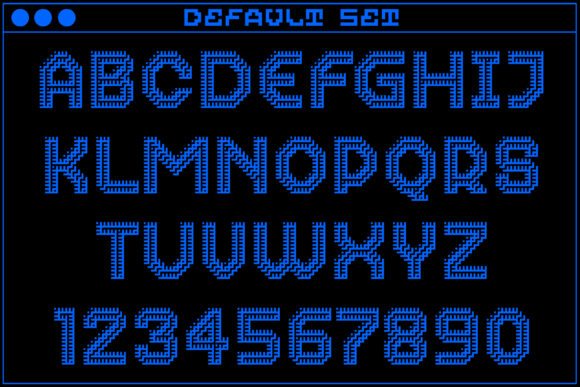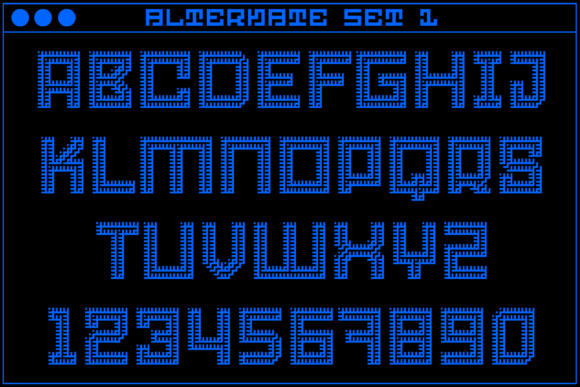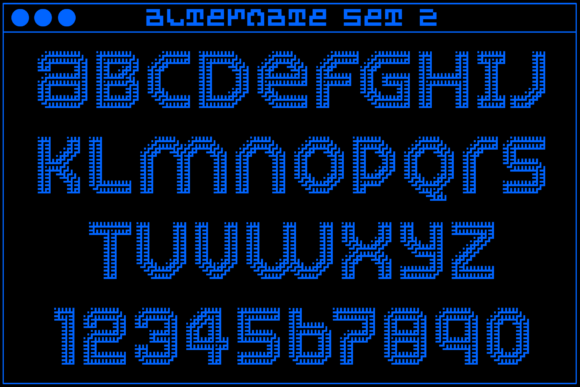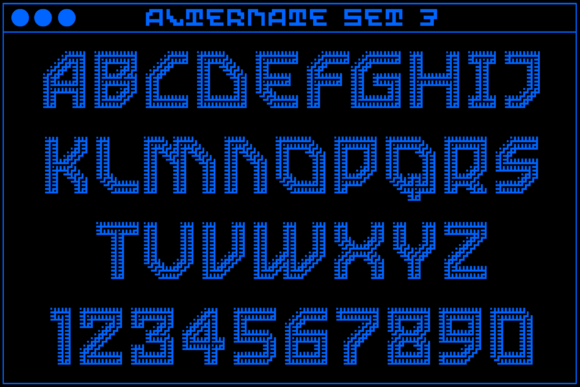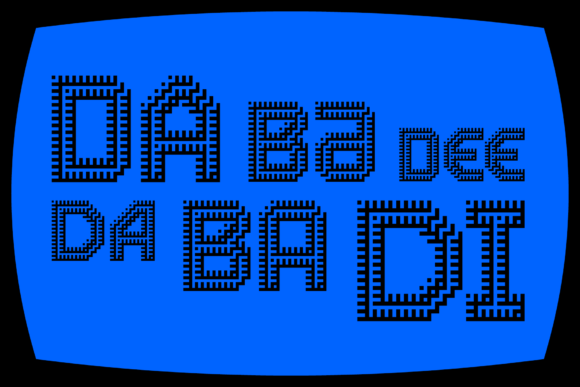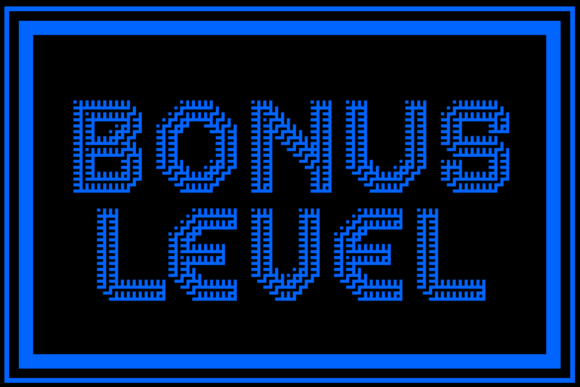
Introduction to MultiType Maze Stairs 2 Font
As a designer, have you ever stared at a blank canvas, searching for the perfect font to bring your creative project to life? The right font can make all the difference, elevating your design from bland to grand. For those who crave something unique and eye-catching, we’re excited to introduce the MultiType Maze Stairs 2 Font – a game-changing display font that’s sure to add a touch of edginess to your designs.
With its cool, pixelated design and trendy twist, MultiType Maze Stairs 2 Font is the perfect addition to any design resource. Whether you’re working on a high-profile project or simply want to spice up your social media graphics, this font is sure to impress. And the best part? It’s free to download, so you can get creative without breaking the bank.
Key Features of MultiType Maze Stairs 2 Font
- Unique MultiType design with multiple styles and weights for creative projects
- High-quality font with transparent background, ideal for use as a design resource
- Includes 6 styles, each with 6 weights, for a total of 36 unique font variations
- Perfect for use in various design projects, including logos, graphics, and digital art
Honest Review: MultiType Maze Stairs 2 Font
I recently had the chance to work with the MultiType Maze Stairs 2 Font, and I must say it’s been a game-changer for my creative projects. As a designer, I’m always on the lookout for high-quality design resources that can help me bring my ideas to life.
- ✨ Unique design: The font’s maze-like structure adds a touch of whimsy to any project, making it perfect for creative endeavors.
- ✨ Transparent background: This feature makes it easy to place the font on any background without worrying about a distracting grid.
However, I do have to mention a few limitations ⚠️:
- ⚠️ Limited character set: While the font is beautiful, it’s only available in a limited character set, which can be restrictive for some projects.
- ⚠️ Not ideal for body text: The font’s unique design makes it better suited for headlines and titles, rather than body text.
Overall, I’m impressed with the MultiType Maze Stairs 2 Font. It’s a high-quality design resource that can add a touch of personality to any creative project. While it may have some limitations, I believe it’s a valuable addition to any designer’s toolkit.
MultiType Maze Stairs 2 Font is a high-quality, free design resource ideal for creative projects requiring unique and intricate typography. This font features a transparent background, allowing for seamless integration into various design platforms.